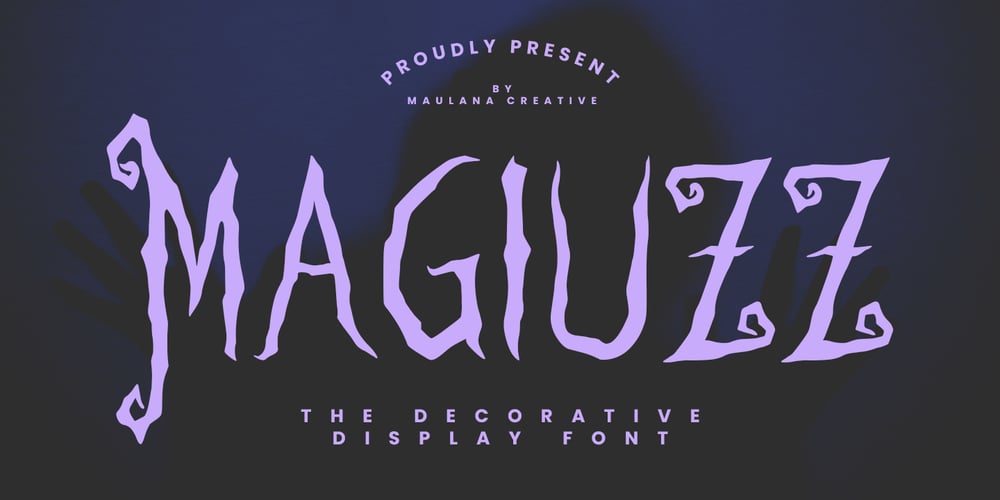
MC Magiuzz
MC Magiuzz font
MC Magiuzz Font Family was designed by Gilang Maulana and published by Maulana Creative. MC Magiuzz contains 1 styles and family package options. Magiuzz is a decorative display font. With bold tall and sharp stroke, fun character with a bit of ligatures and alternates. To give you an extra creative work. Magiuzz font support multilingual more than 100+ language. This font is good for logo design, Social media, Movie Titles, Books Titles, a short text even a long text letter and good for your secondary text font with sans or serif. Make a stunning work with Magiuzz font.